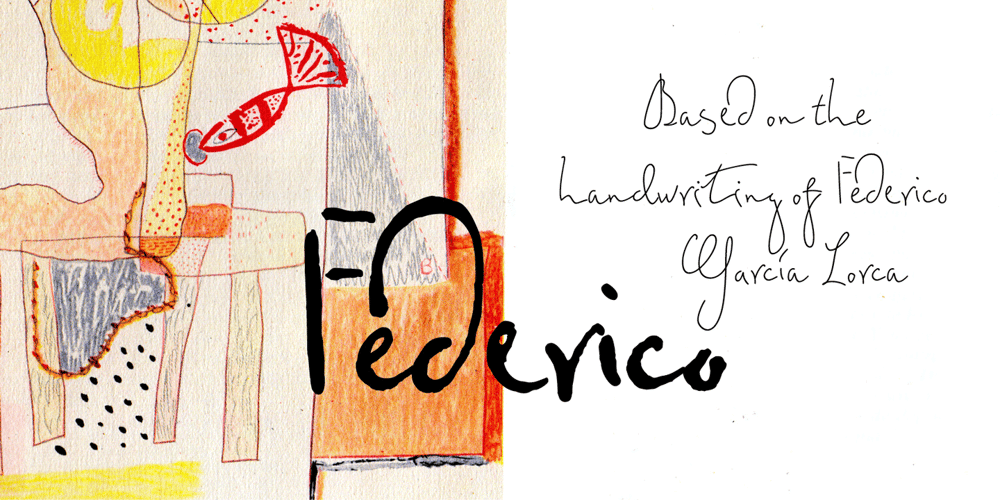
Federico Font Family was designed by Olga Umpeleva and published by Olga Umpeleva. Federico contains 2 styles and family package options. Federico is a typeface based on the handwriting of Federico Garcia Lorca, the eminent Spanish poet and playwright (1898-1936). Original version was designed for a book about Lorca. The face has two styles. One looks like an original poets writing, the second looks like if Lorca would write with a ball pen. Federico includes many alternative glyphs and ligatures, which make it look like a real writing of an emotional, negligent, creative man. Despite the fact that Garcia Lorca has written in spanish, the font has western and eastern european, cyrillic, turkish letters.